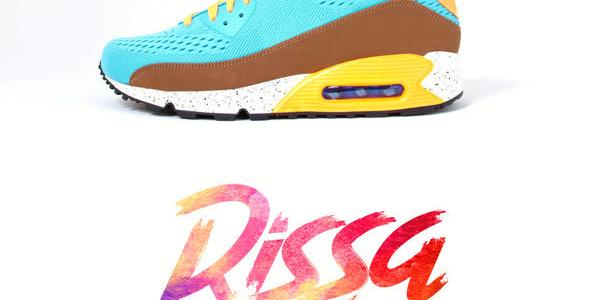
Jarvish Blurry Typeface
Give your designs an authentic brush handcrafted feel. “Jarvish Blurry” is perfectly suited to stationery, logos and much more.